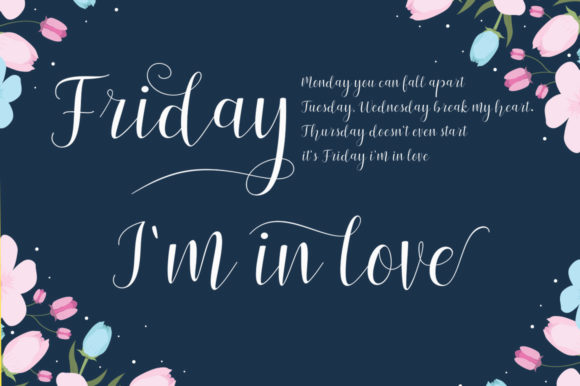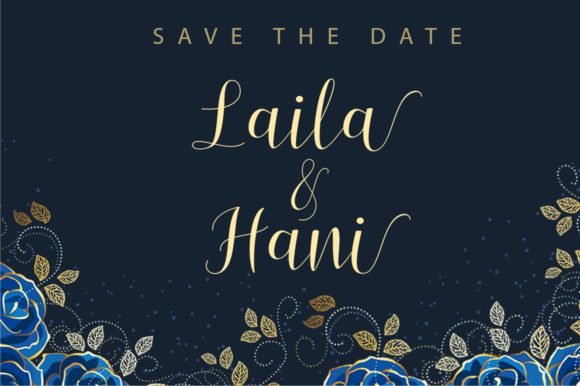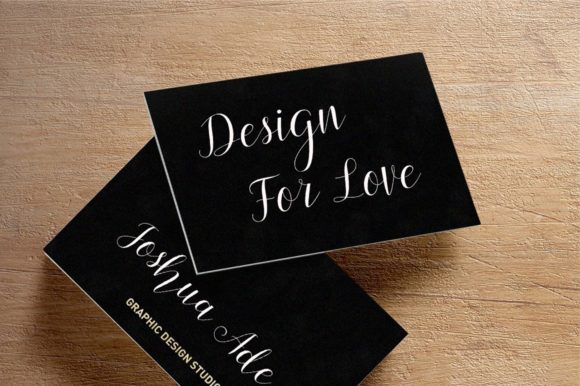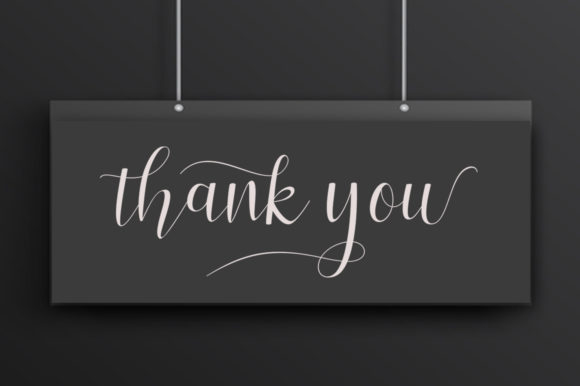
Introducing Anggrek Font: The Perfect Choice for Modern Designers and Crafters
In the world of typography, fonts play a crucial role in conveying the tone and personality of a design. For designers and crafters looking for a modern script font that exudes a trendy and feminine style, Anggrek Font is an excellent choice. This beautiful font features an irregular baseline, giving it a unique and eye-catching appearance that’s perfect for a variety of design projects.
What is Anggrek Font?
Anggrek Font is a modern script font designed with a trendy and feminine touch. Its irregular baseline gives it a distinctive look that’s both stylish and elegant. This font is perfect for designers and crafters who want to add a personal touch to their designs, making it ideal for projects that require a touch of sophistication and whimsy.
Uses of Anggrek Font
Anggrek Font is a versatile font that can be used for a wide range of design projects, including:
• Wedding invitations: The elegant and feminine style of Anggrek Font makes it perfect for wedding invitations, adding a touch of romance and sophistication to your designs.
• Thank you cards: Express your gratitude with style using Anggrek Font, which is ideal for creating beautiful and heartfelt thank you cards.
• Quotes: Add a touch of elegance to your quotes with Anggrek Font, making them perfect for social media posts, blogs, and other digital platforms.
• Greeting cards: Create stunning greeting cards for special occasions, such as birthdays, anniversaries, and holidays, using Anggrek Font.
• Logos: Use Anggrek Font to create a unique and memorable logo for your business or brand, giving it a touch of personality and style.
• Business cards: Stand out from the crowd with Anggrek Font, which is perfect for designing business cards that are both stylish and professional.
Why Choose Anggrek Font?
There are several reasons why Anggrek Font is a popular choice among designers and crafters:
• Unique style: The irregular baseline of Anggrek Font gives it a distinctive look that’s both modern and elegant.
• Feminine touch: The font’s feminine style makes it perfect for designs that require a touch of elegance and sophistication.
• Versatility: Anggrek Font can be used for a wide range of design projects, from wedding invitations to logos and business cards.
• Easy to read: Despite its unique style, Anggrek Font is easy to read, making it perfect for designs that require a clear and legible font.
Tips for Using Anggrek Font
Here are some tips for using Anggrek Font in your designs:
• Pair it with a simple font: Anggrek Font is a statement font, so pair it with a simple font to create a balanced design.
• Use it sparingly: While Anggrek Font is beautiful, it can be overwhelming if used excessively. Use it sparingly to create a focal point in your design.
• Experiment with colors: Anggrek Font looks stunning in a variety of colors, so experiment with different hues to find the perfect one for your design.
Font Name Anggrek Font
Author Stellar Studio
Anggrek Font is a beautiful and versatile font that’s perfect for designers and crafters looking for a modern script font with a trendy and feminine style. Its unique irregular baseline and elegant appearance make it ideal for a wide range of design projects, from wedding invitations to logos and business cards. With its ease of use and stunning appearance, Anggrek Font is a must-have font for any designer or crafter looking to add a touch of sophistication and whimsy to their designs.